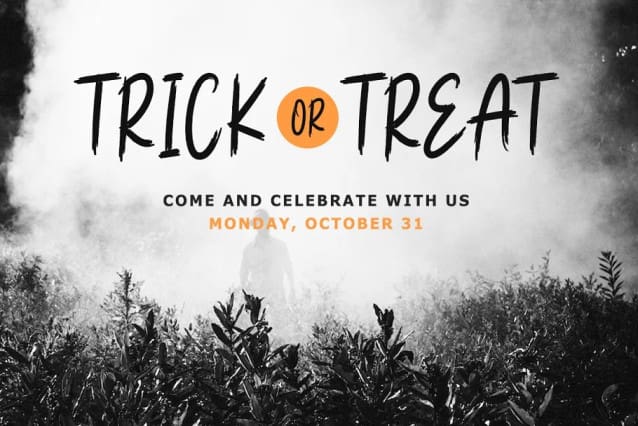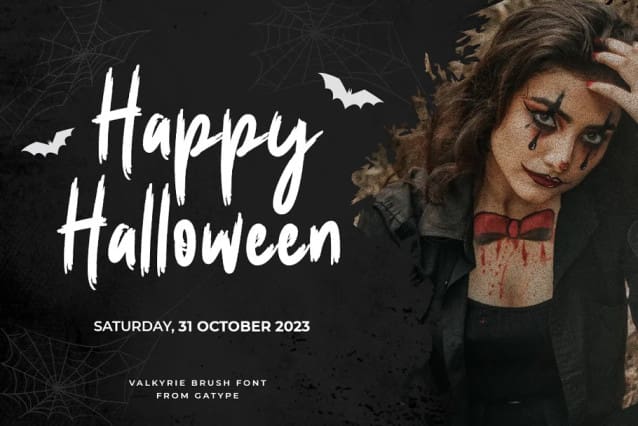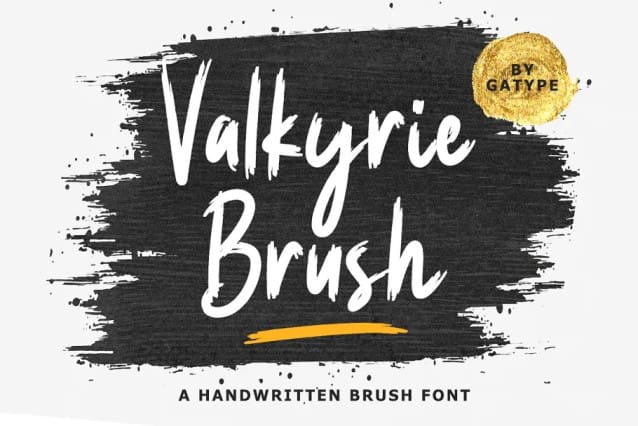
Valkyrie Brush Font
Valkyrie Brush Font, is a unique textured brush font, because this brush font is made digitally. contemporary approach to design, and has underlines and also has several ligatures.
Suitable for use in title designs such as tittle books, stationery designs, quotes, branding, logos, clothing, invitations, greeting cards, t-shirts, packaging designs, posters and more.